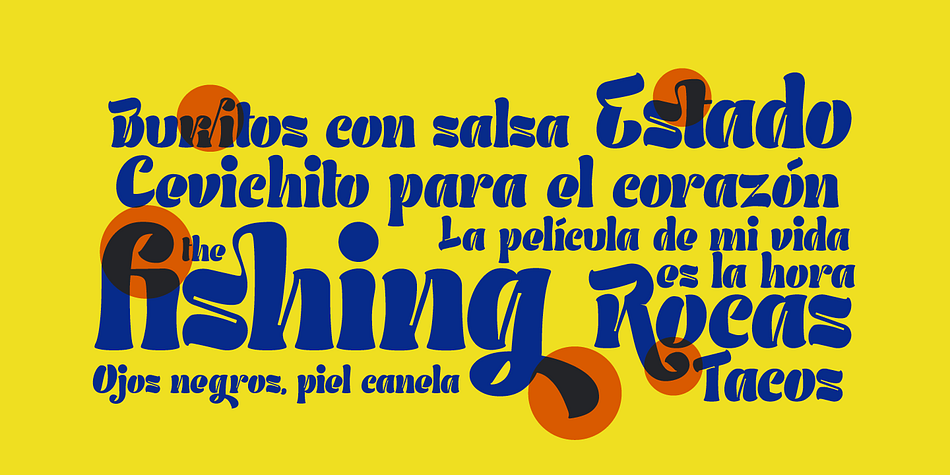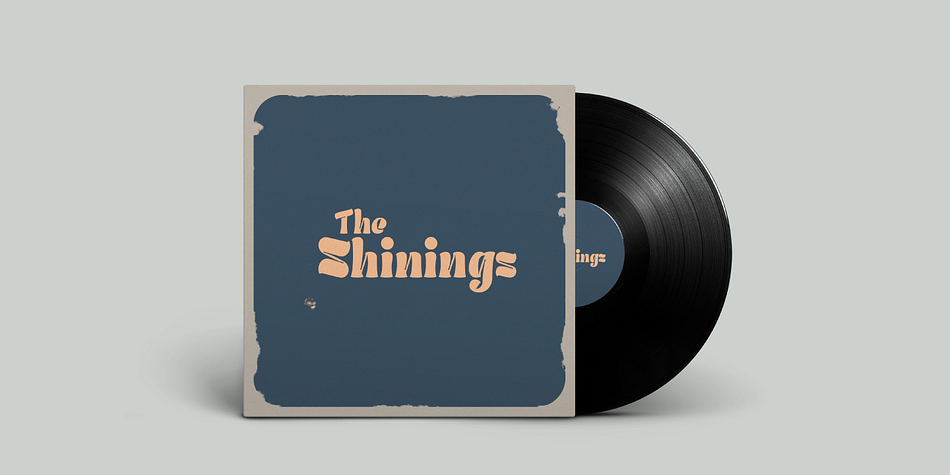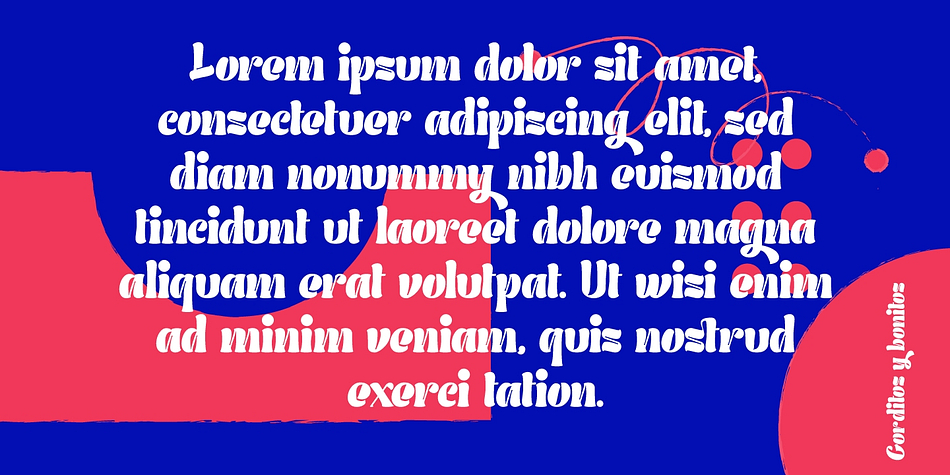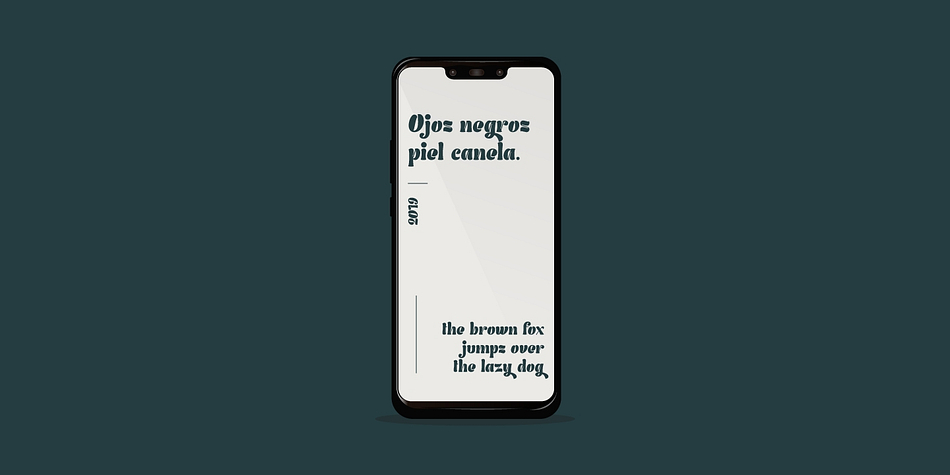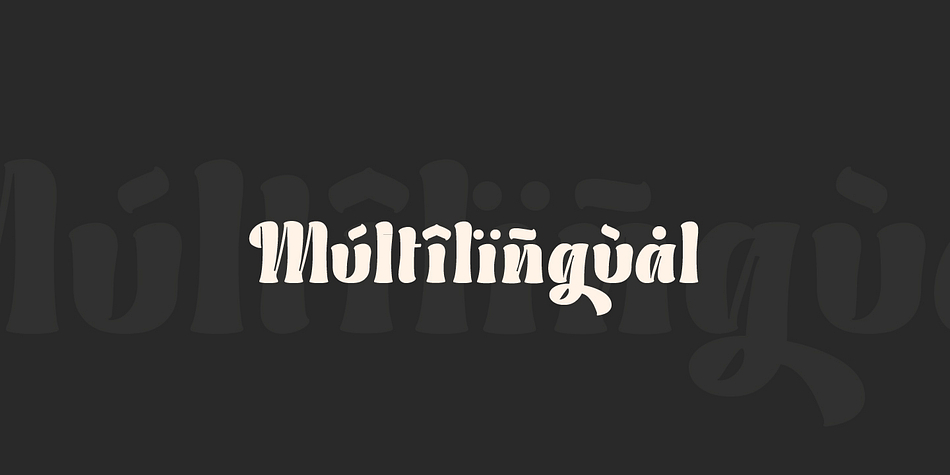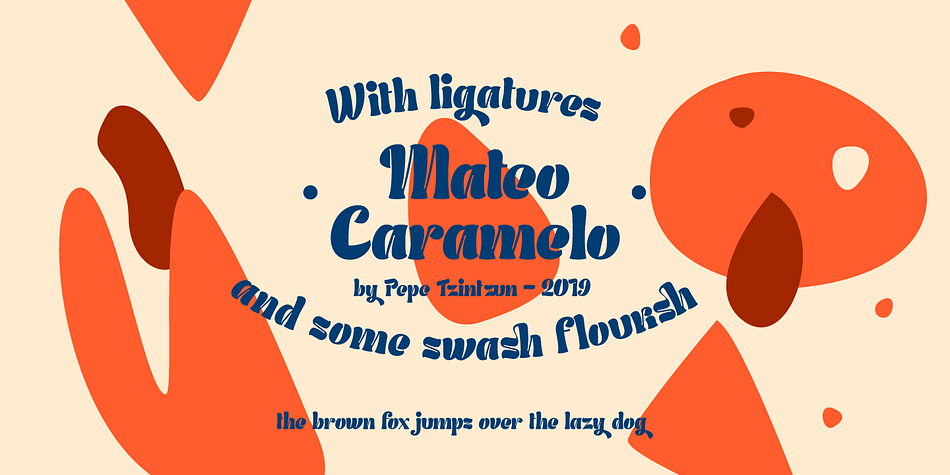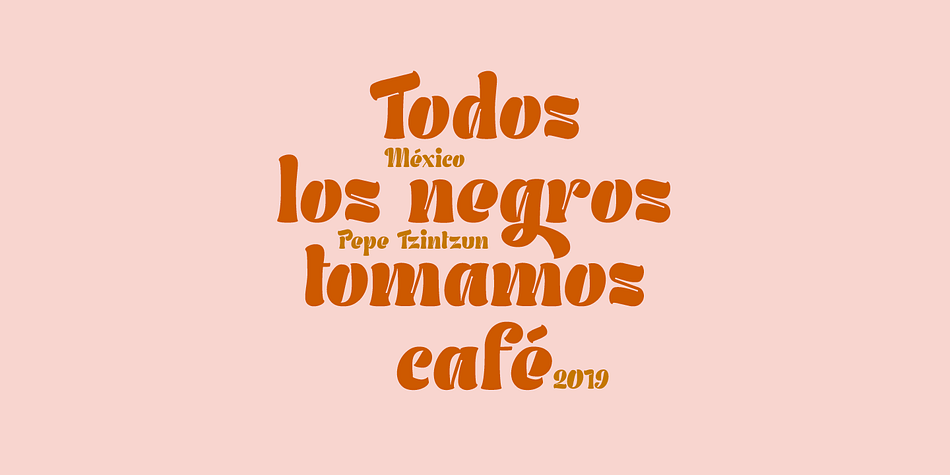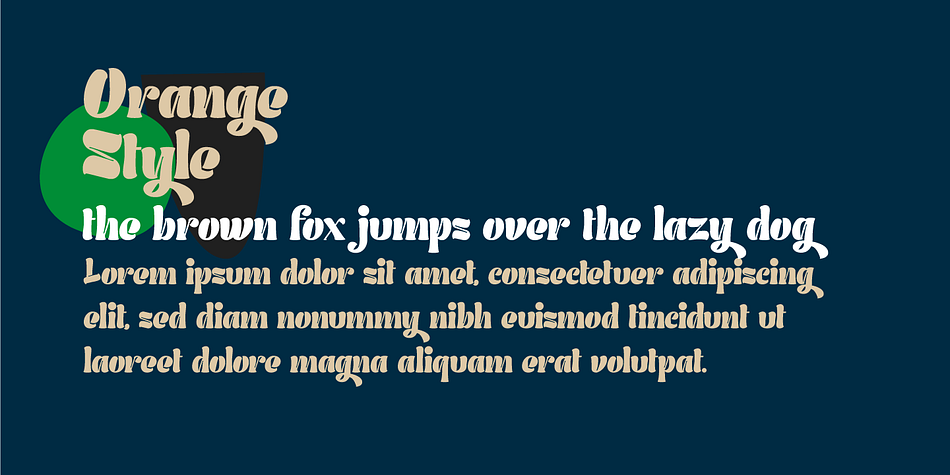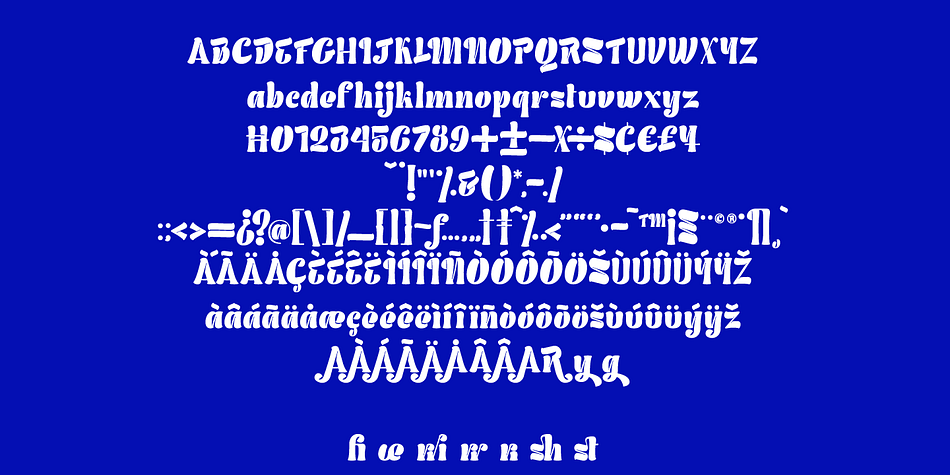
Designed by Pepe Tzintzun, Mateo Caramelo is a brush display and script font published by Pepe Tzintzun.
Typography inspired by Mexican streets, their signs and their flavor.